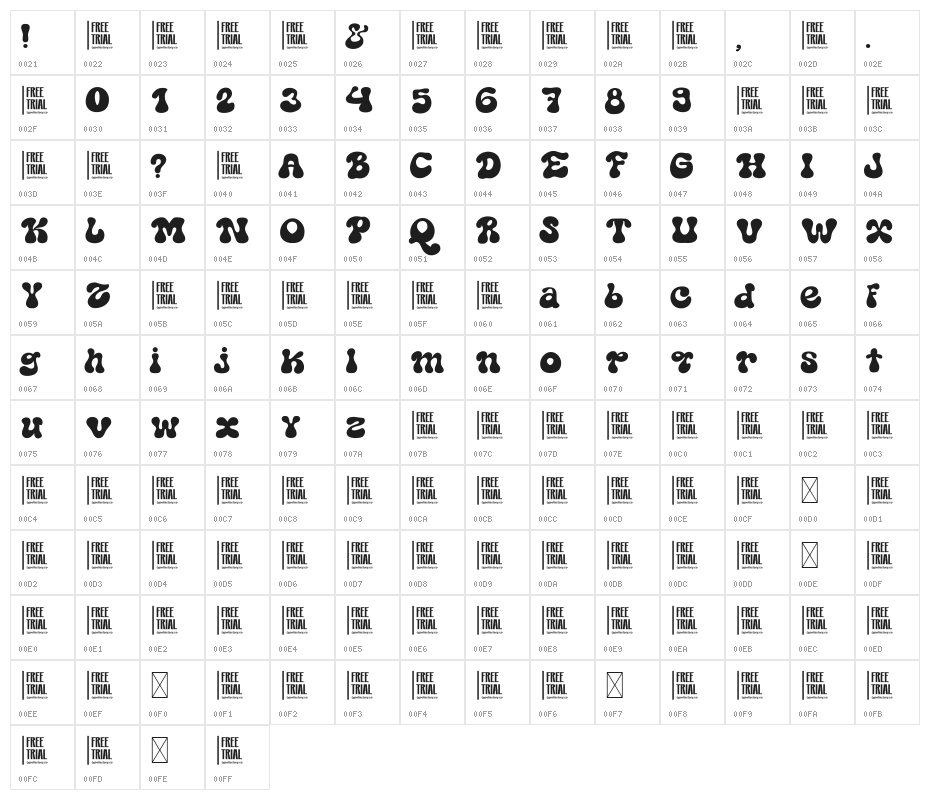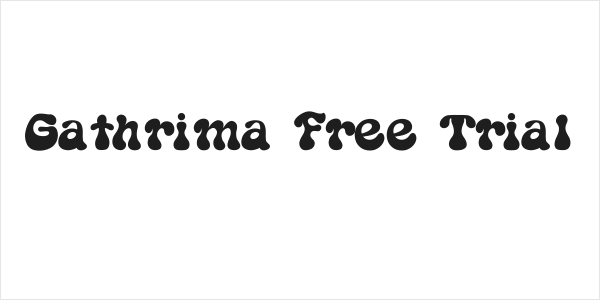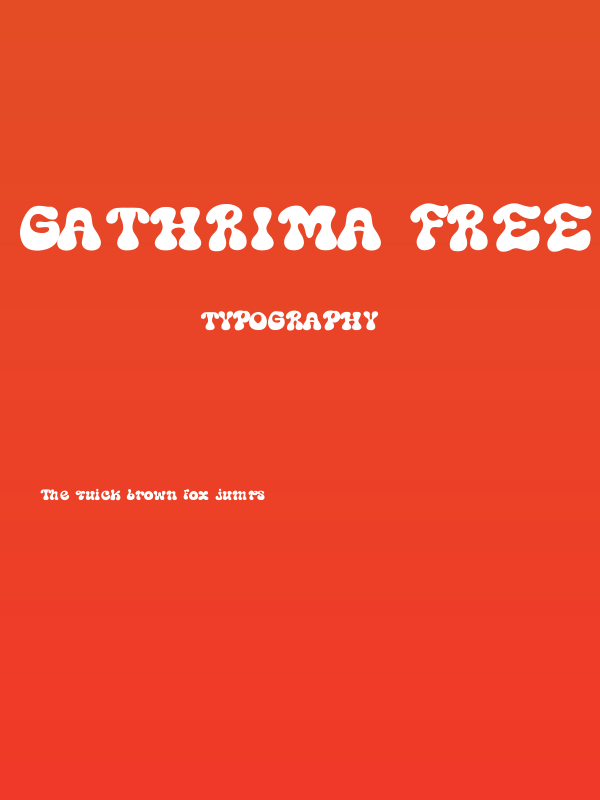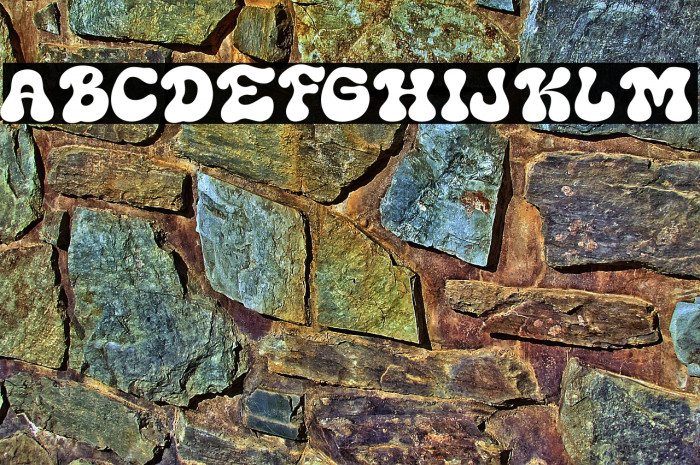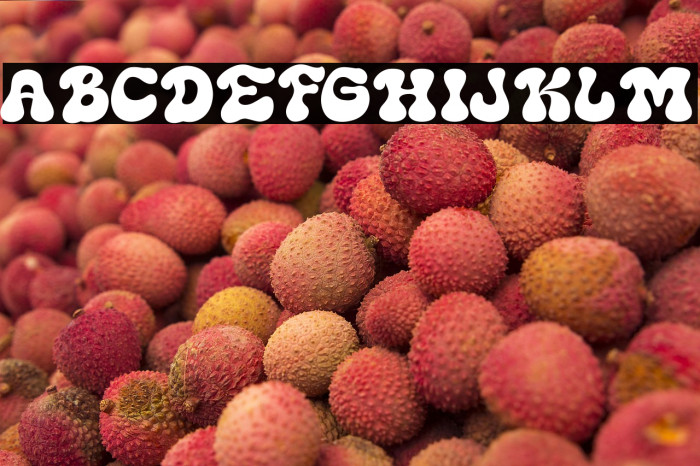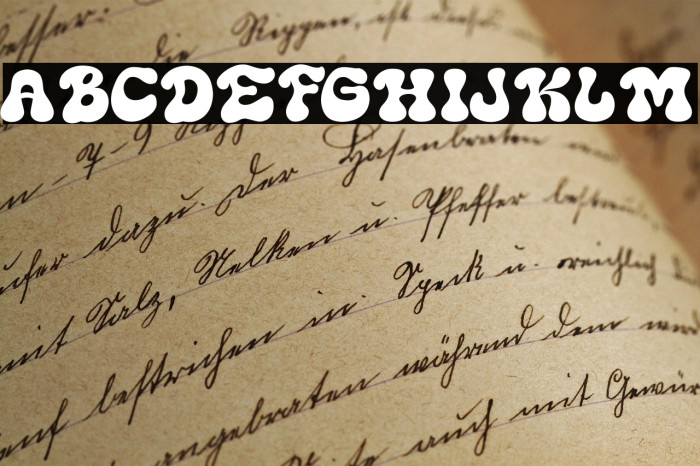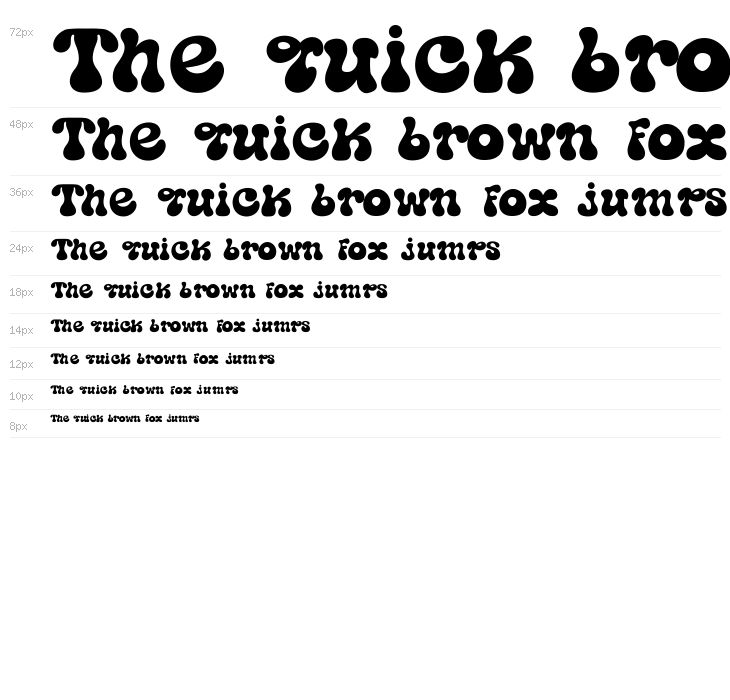
Gathrima Free Trial Font
Gathrima Free Trial Description
This font features a bold and playful design with a distinctively bubbly and rounded appearance. The characters are thick and have a whimsical, almost cartoon-like quality, making them stand out with a unique personality. The uppercase and lowercase letters maintain a consistent style, with exaggerated curves and a slightly irregular form that adds to its charm. The numbers and special characters follow the same playful aesthetic, ensuring a cohesive look across all text. This font is ideal for projects that require a fun and eye-catching typeface.
| Proposed Projects | Perfect for children's books, playful branding, posters, and creative advertising. |